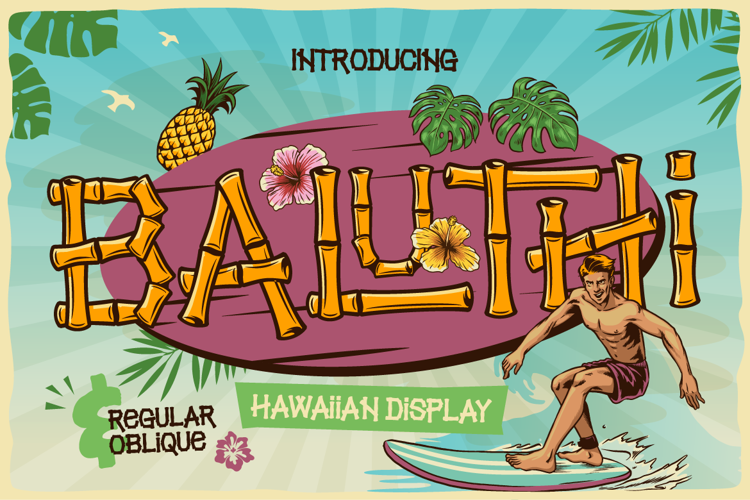
Baluthi Font
Perfect for:
- Tiki bar menus, signage, & cocktail lounge branding
- Summer beach party posters, flyers, & Hawaiian festival graphics
- Surf shop logos, apparel, & beachwear merch
- Tropical food packaging, juice labels, & restaurant menus
- Island tourism branding, YouTube thumbnails, & summer event banners